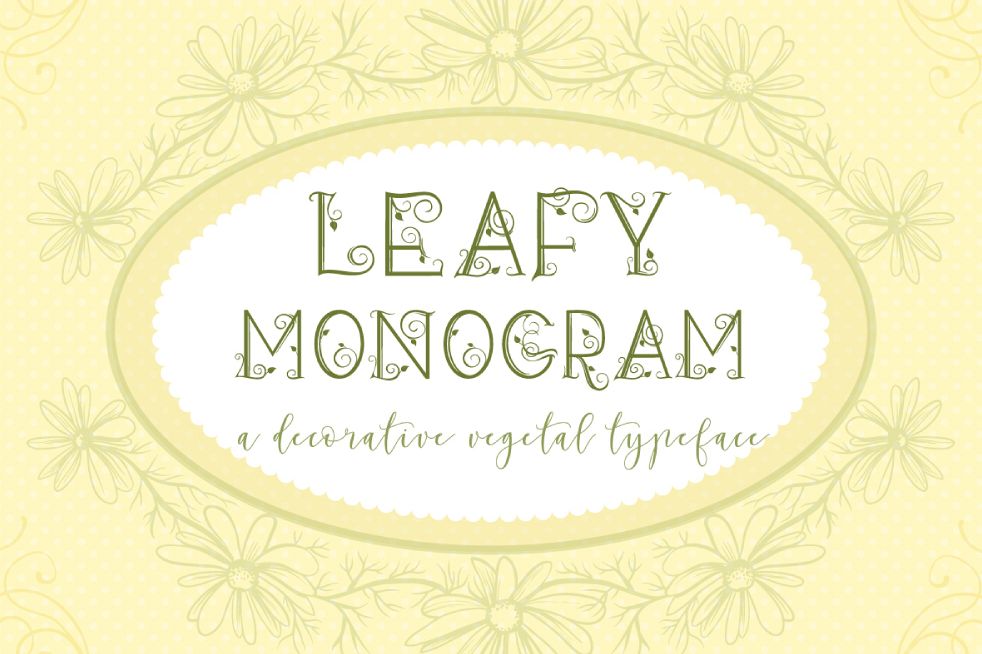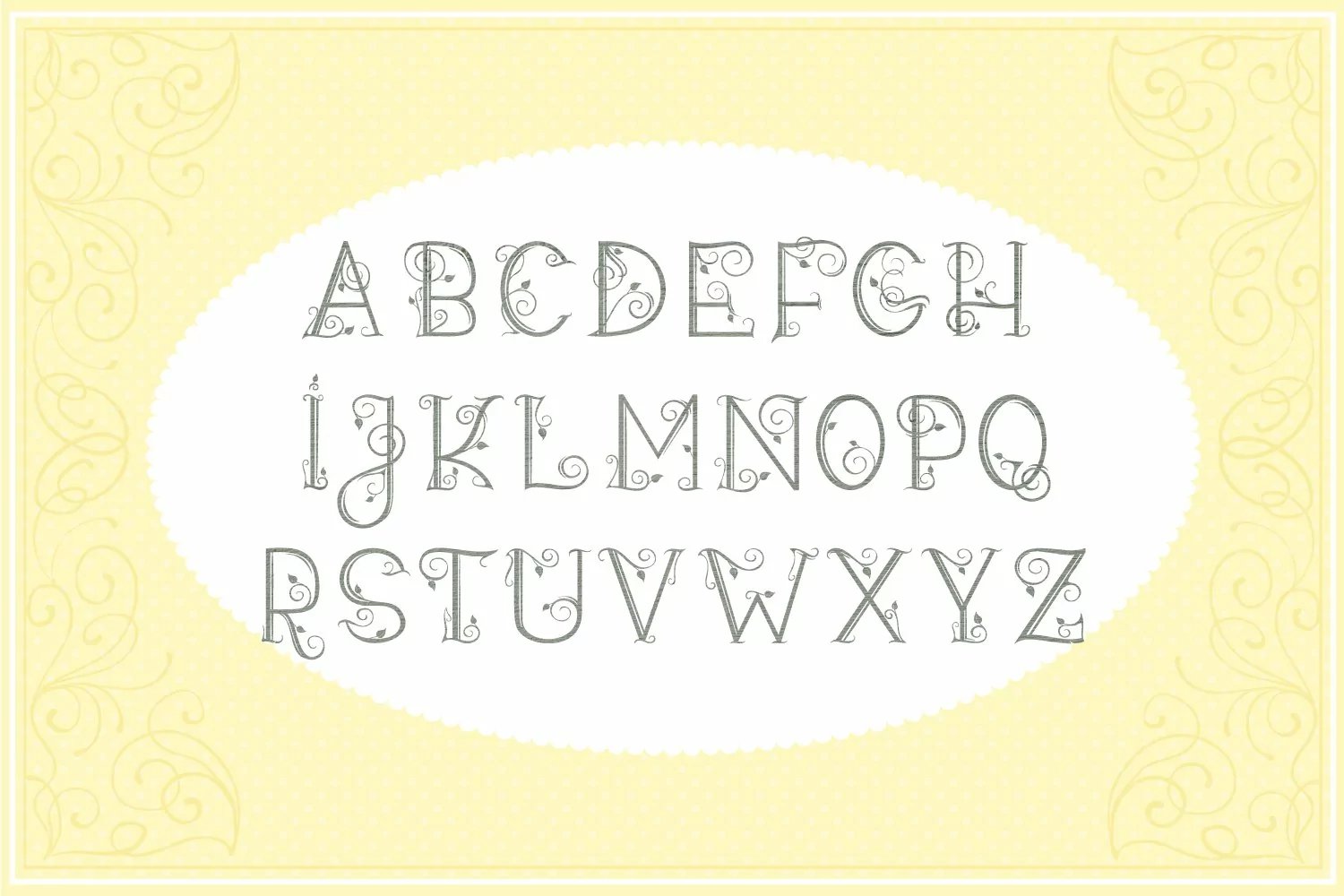
Leafy Monogram is an all caps decorative font.
Each letter is carefully hand-drawn with vintage swirls and vegetal elements to have an elegant and feminine appearance.
The letters can be used individually as monograms or as a font.